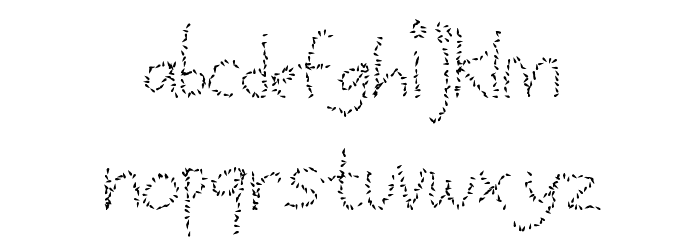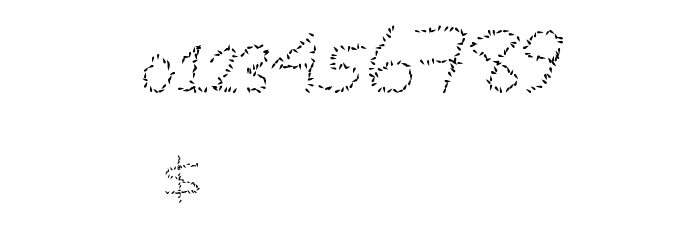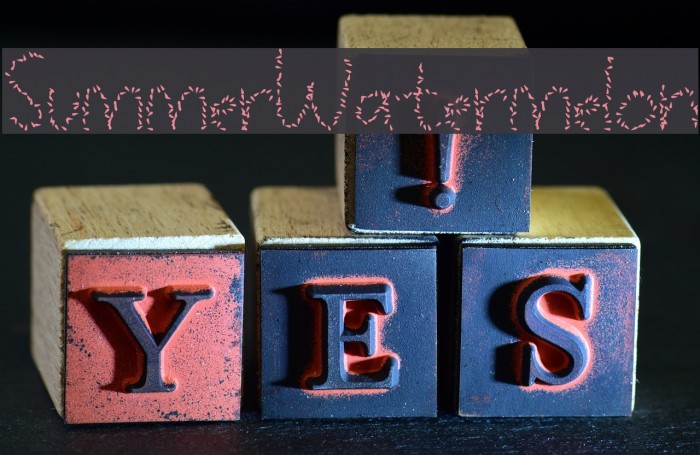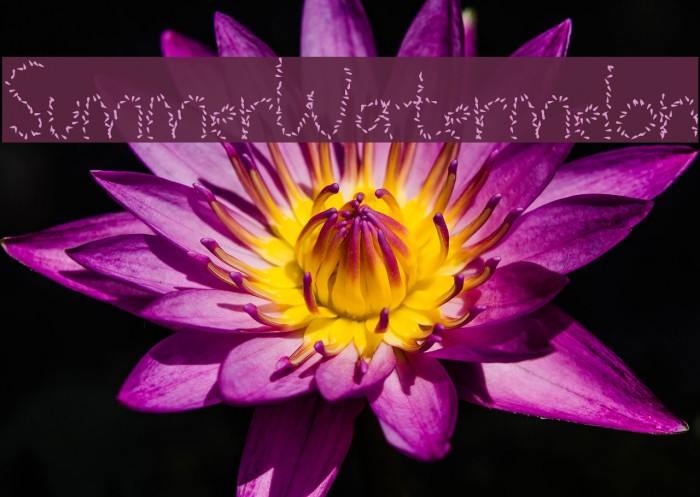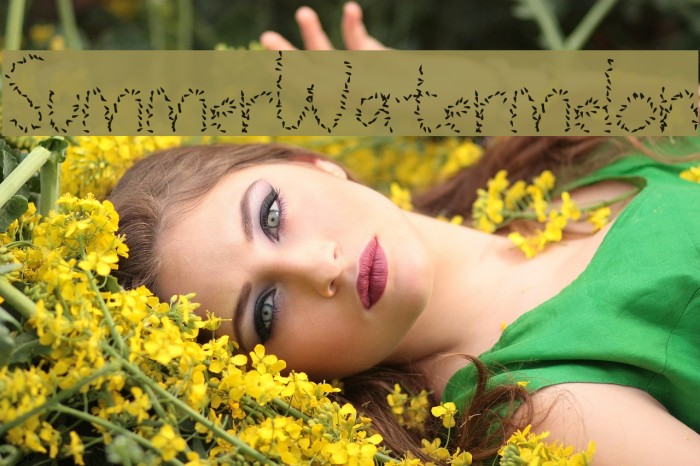
SummerWatermelon Font
This playful and decorative font features a unique design reminiscent of watermelon seeds scattered across each character. The letters are formed with a series of small, irregular shapes that create a textured and whimsical appearance. The uppercase and lowercase letters maintain a consistent style, with a slightly irregular baseline that adds to the casual and fun aesthetic. Numbers and special characters are included, following the same playful theme. This font is perfect for projects that require a lighthearted and summery feel, such as children's books, party invitations, or seasonal marketing materials.
A playful, decorative font with a watermelon seed pattern, perfect for fun and summery projects.
- Proposed Projects: Ideal for children's books, party invitations, seasonal marketing materials, and playful branding.